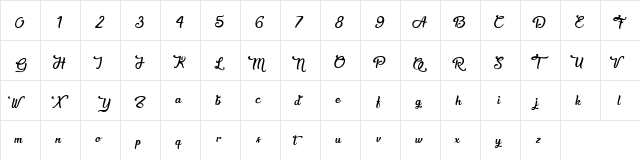
Sweetheart Birthday Regular
| Foundry | Cataleya Butcher |
| Designer | Cataleya Butcher |
Design Context for Sweetheart Birthday Typeface
Sweetheart Birthday is a composed and adaptable typeface that performs quietly and consistently across a wide range of design contexts.